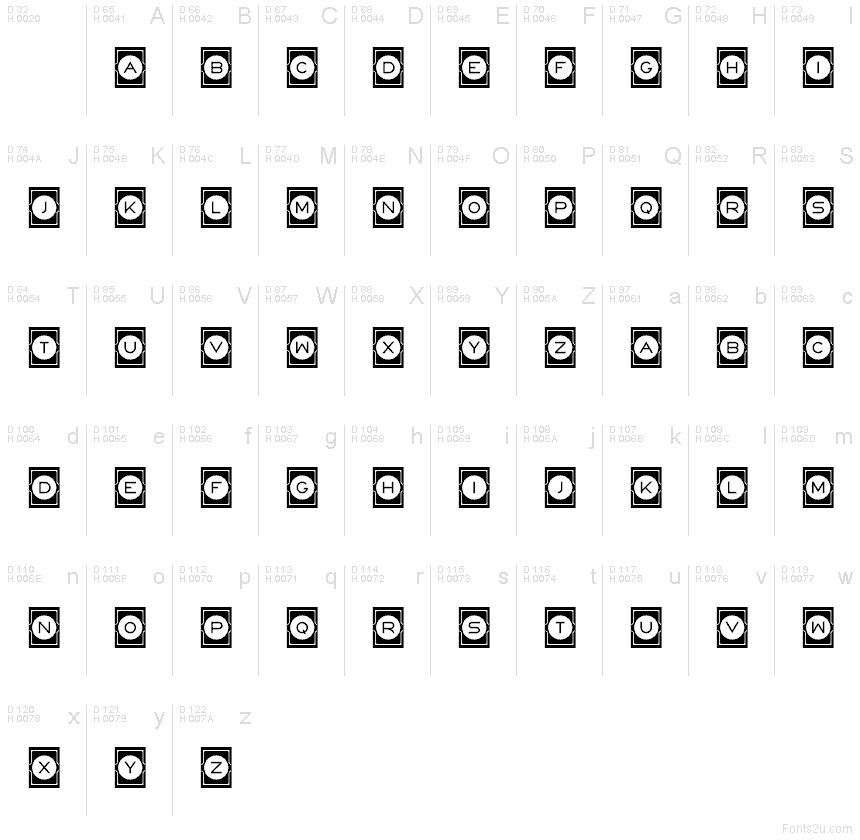
Concave Frames Extravagant Regular
Concave Frames Extravagant font is a display masterpiece by Vladimir Nikolic, showcasing rounded geometric design with a high-contrast futuristic aesthetic. Drawing inspiration from mid-century modern styles, this decorative and expanded font offers a stylized presentation, perfect for projects that demand attention.